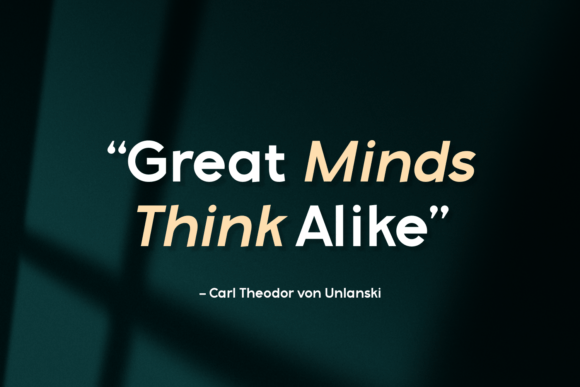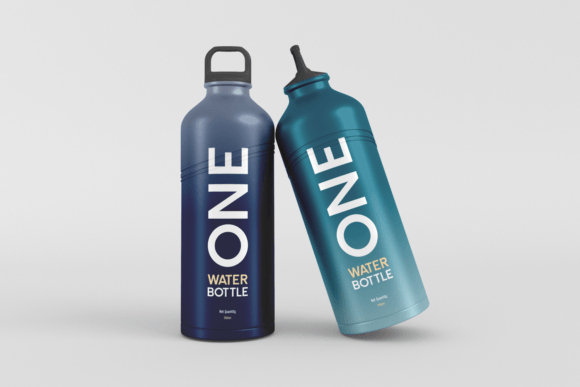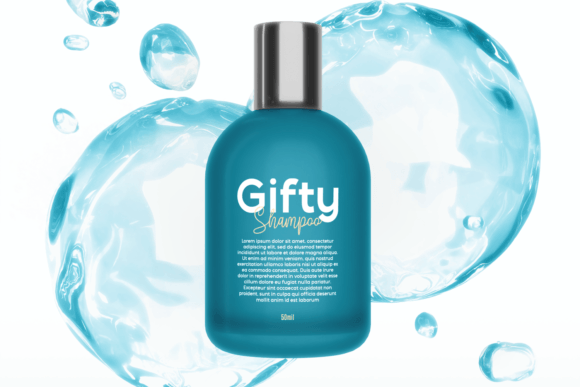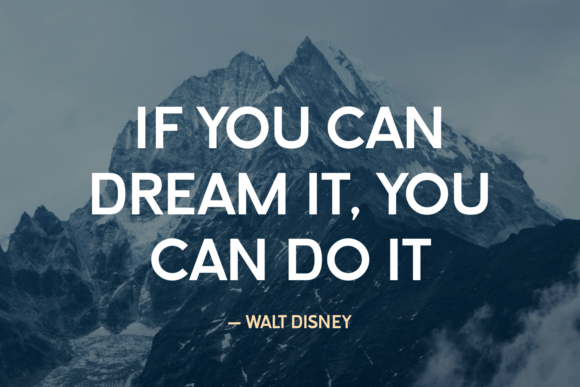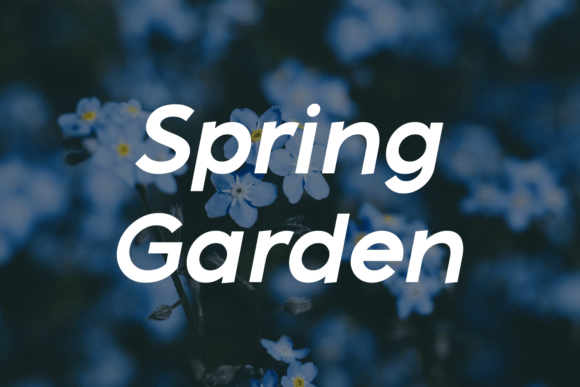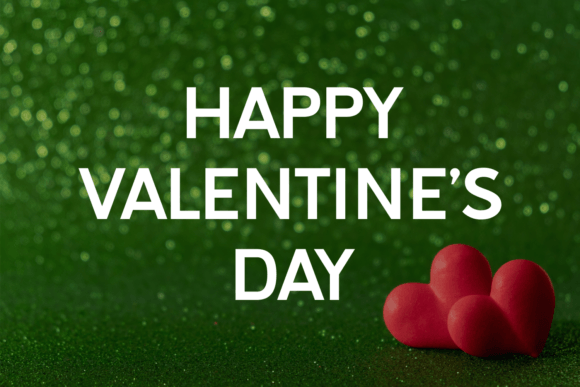
Ezekiela Font: Elevate Your Design with Modern Simplicity
In the world of typography, fonts play a crucial role in conveying messages, evoking emotions, and creating lasting impressions. For designers and crafters seeking a modern sans-serif font that embodies cleanliness and contemporary style, look no further than Ezekiela. This versatile font is designed to bring a fresh and stylish vibe to any project, making it perfect for a wide range of applications.
The Essence of Ezekiela
Ezekiela is a modern sans-serif font that boasts a simple yet sophisticated design. Its clean lines and uncluttered aesthetic make it an ideal choice for designers who want to convey a sense of elegance and refinement. The font’s contemporary look and feel ensure that it stays ahead of the curve, making it perfect for projects that require a modern touch.
Key Features of Ezekiela
• Clean and Simple Design: Ezekiela’s minimalist approach makes it easy to read and versatile enough to be used in various contexts.
• Modern Aesthetic: The font’s sleek and contemporary look ensures that your designs stand out in a crowded digital landscape.
• Versatility: From eye-catching titles to easy-to-read body text, Ezekiela is designed to perform exceptionally well across different applications.
• High Readability: Ezekiela’s clear and legible design makes it perfect for body text, ensuring that your audience can easily digest the information.
Applications of Ezekiela
Ezekiela’s versatility makes it suitable for a wide range of projects, including:
• Branding and Logo Design: Create a lasting impression with Ezekiela’s modern and stylish vibe.
• Web Design: Enhance your website’s typography with Ezekiela’s clean and readable design.
• Print Design: From brochures to business cards, Ezekiela is perfect for any print project that requires a modern touch.
• Digital Media: Use Ezekiela to create engaging social media graphics, presentations, and more.
Benefits of Using Ezekiela
By incorporating Ezekiela into your design projects, you can:
• Enhance Readability: Ezekiela’s clear and legible design ensures that your audience can easily read and understand your content.
• Boost Visual Appeal: The font’s modern aesthetic adds a touch of sophistication and elegance to any design.
• Increase Versatility: Ezekiela’s versatility makes it suitable for a wide range of applications, saving you time and effort.
Ezekiela is a modern sans-serif font that offers a perfect blend of simplicity, elegance, and versatility. Its clean and contemporary design makes it an ideal choice for designers and crafters seeking to elevate their projects with a modern touch. Whether you’re working on a branding project, website design, or print materials, Ezekiela is sure to deliver a stylish and sophisticated look that stands out. Upgrade your design with Ezekiela today and experience the power of modern typography.
• Explore Font Variations: Ezekiela comes in various font weights and styles, allowing you to create a unique and cohesive look.